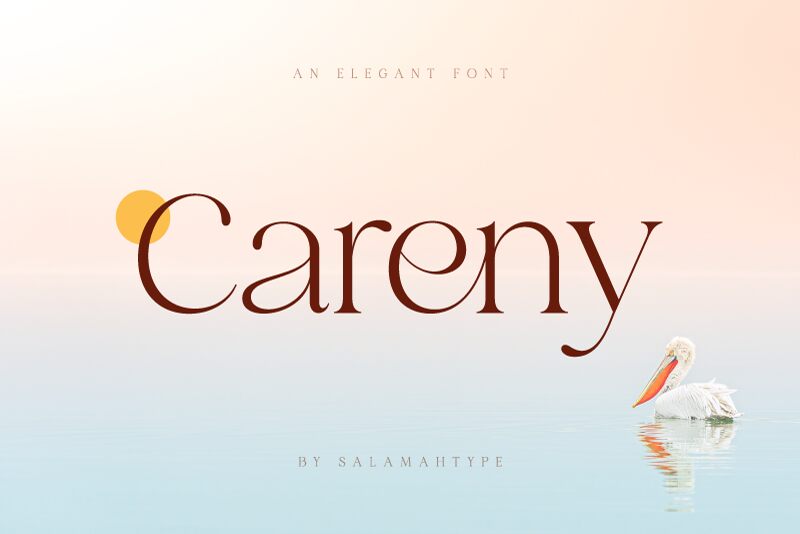
Careny font is a sophisticated serif typeface designed by SalamahType. This refined font showcases an elegant and timeless appeal with its classic design. The meticulous attention to detail in Careny font makes it a versatile choice for designers aiming to elevate the quality of their projects.
This elegant free serif font can be put to work on posters, classic logo designs, magazine covers, book covers, flyers, banners, and advertising campaigns. It can also be used for branding items including packages and labels as well as apparel designs like t-shirts and sweatshirts. Its sleek look will make headings, titles or messages in general gain beauty and value thanks to its sophisticated style.